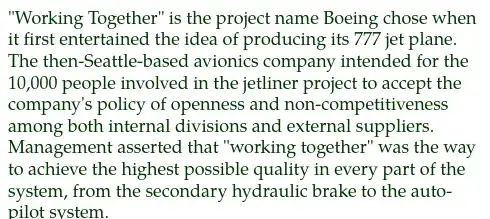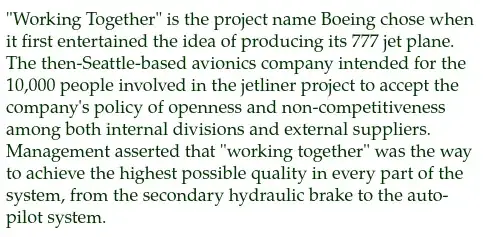
I believe this to be a duplicate of this question, but the accepted answer is 8+ years old and didn't work for me.
Here is a website, which wants to use the Palatino font. On my system, this falls back to Tex Gyre Pagella, also called P052-Roman. Here is what it looks like, it's immediate that the different letters don't have the same height.
Ugly font
The answer to the question linked above claims the problem is with hinting, but applying the fix did not work. I also tried to change the font names URW Palladio L etc to P052-Roman and Tex Gyre Paella.
Here is what I did in the end: By trial and error I removed all P052-fonts Firefox used. They were located in the folders
Now my Firefox correctly loads the TeX Gyre Pagella font, which looks better: